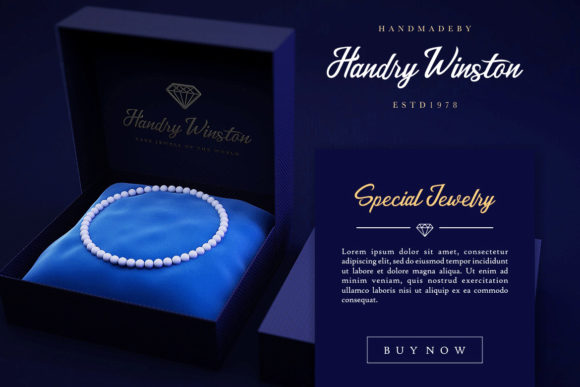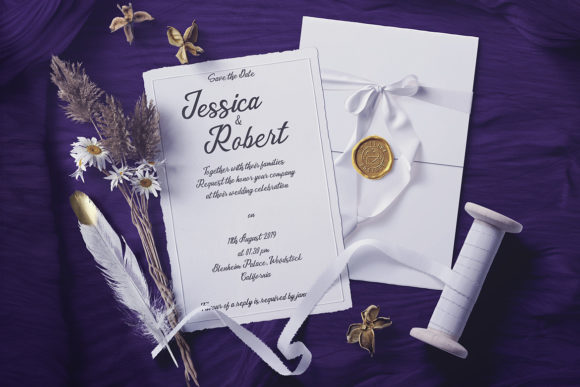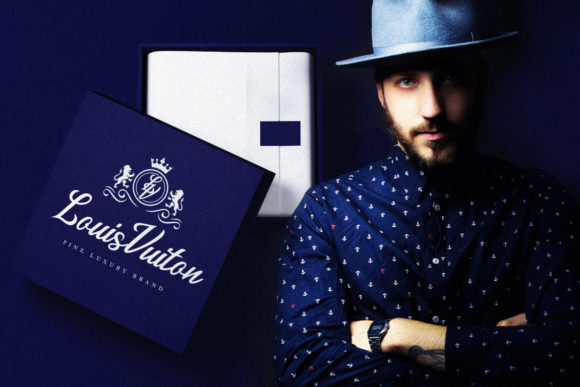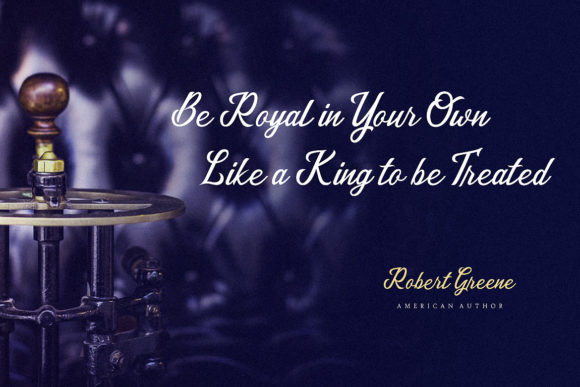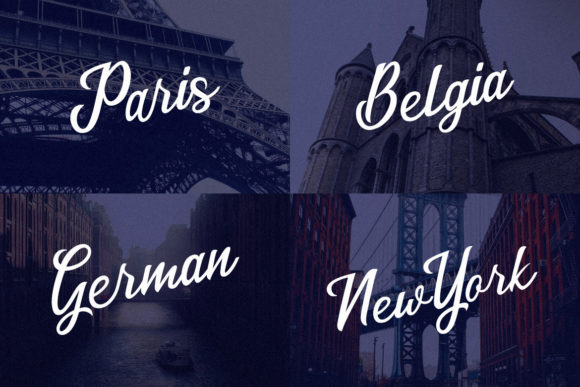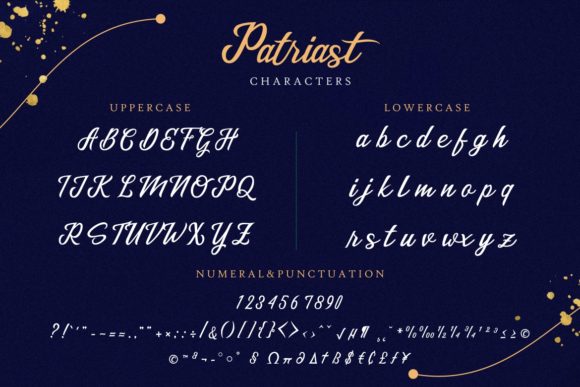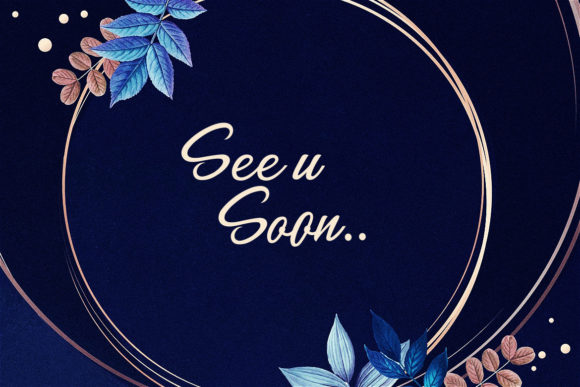
Patriast Font
About Patriast Font
Patriast is a delightfully charming script with an elegant feel. Fall in love with its dazzling style, and take any DIY project to the next level with this must-have.